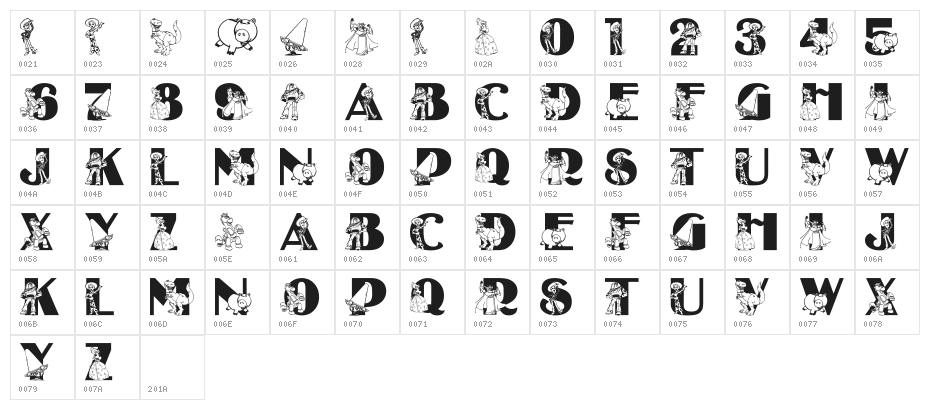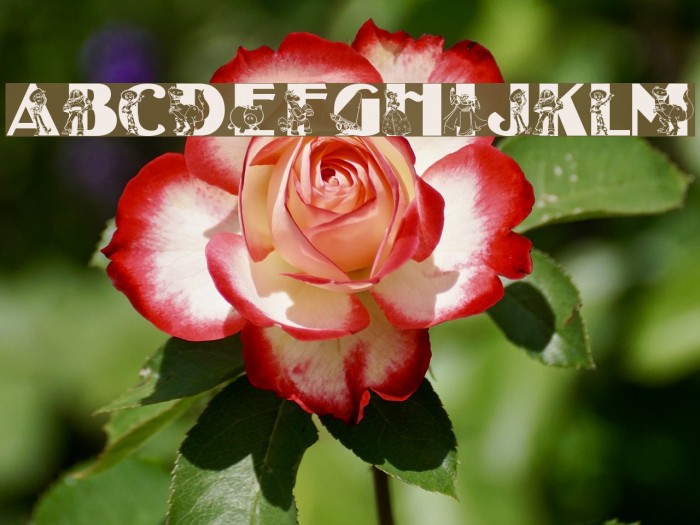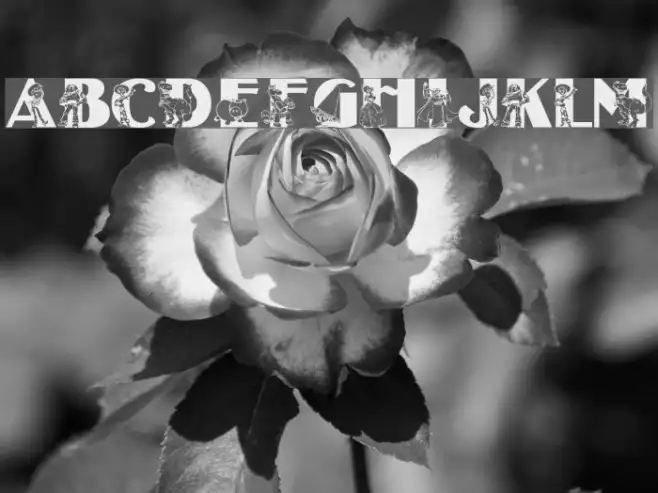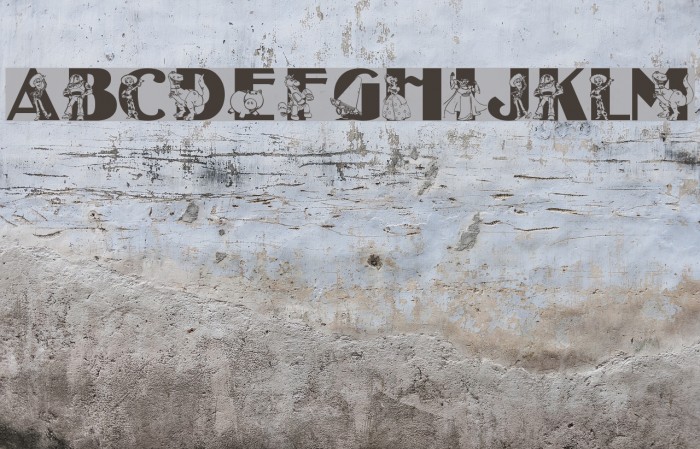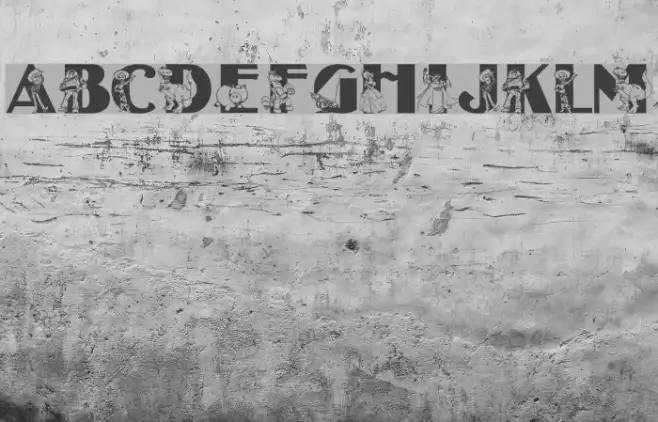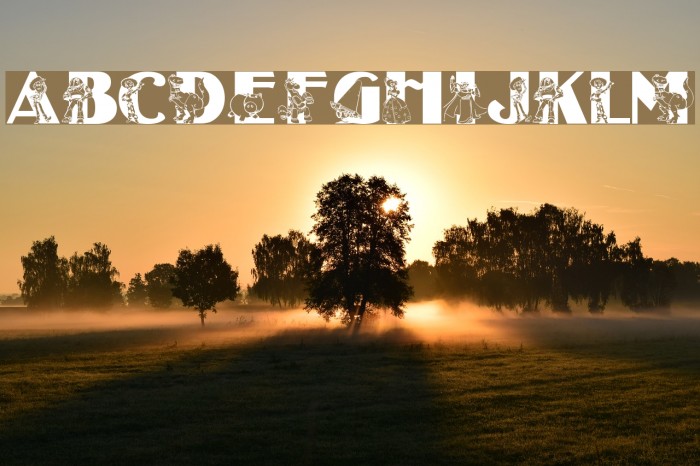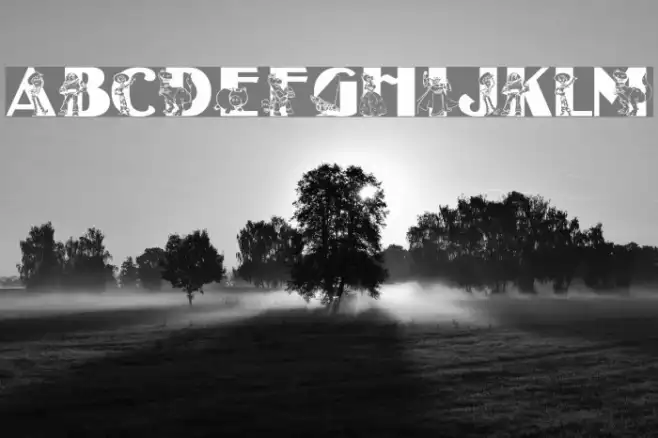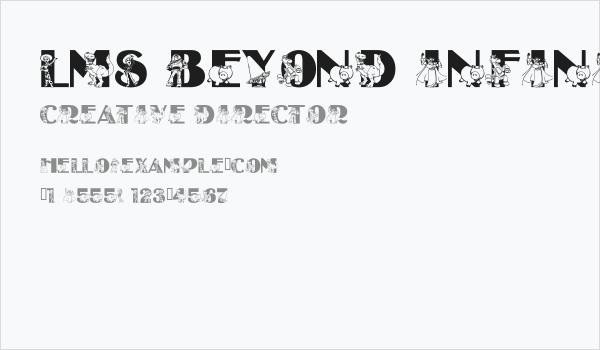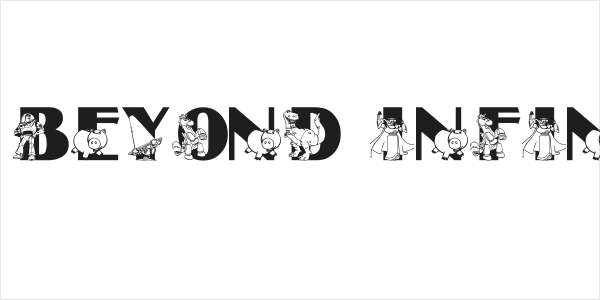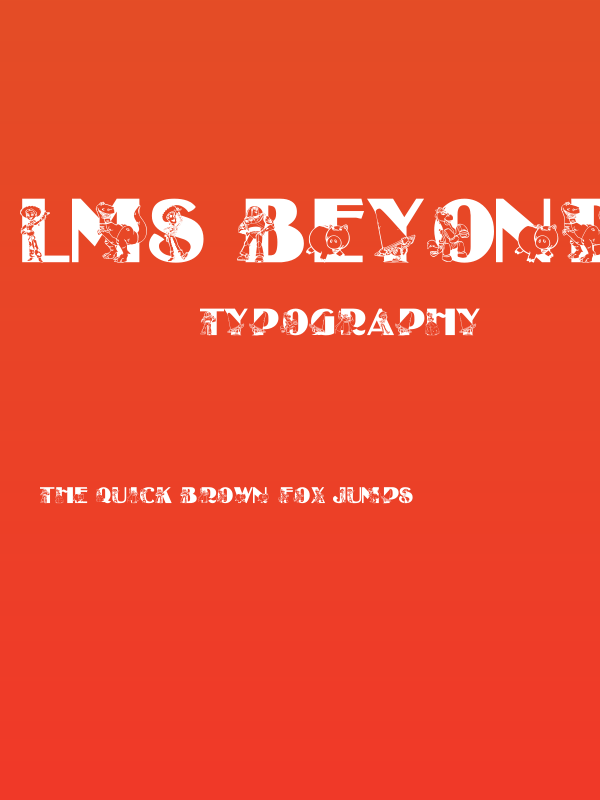
LMS Beyond Infinity Font
LMS Beyond Infinity Description
This font features a playful and whimsical design, incorporating characters and elements from a popular animated universe. Each letter and number is creatively integrated with illustrations of beloved characters, adding a unique and entertaining visual appeal. The font is bold and decorative, making it ideal for projects that require a fun and engaging aesthetic. The characters are well-defined, with a consistent style that maintains readability while offering a distinctive look. The use of familiar figures within the letters adds a layer of storytelling and nostalgia, making it particularly appealing for themed events or children's materials.
| Use Case | Headlines, Posters, Invitations |
| Proposed Projects | Ideal for children's books, themed party invitations, playful posters, and merchandise related to animated films. |